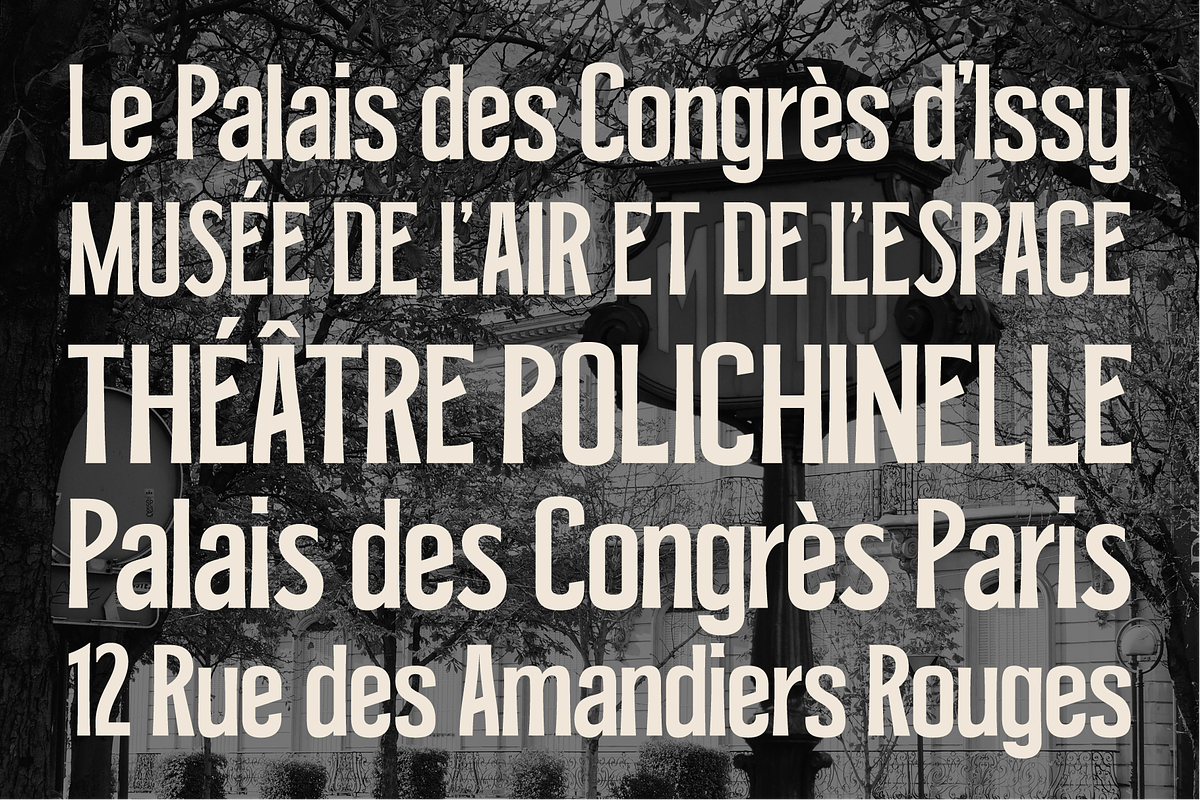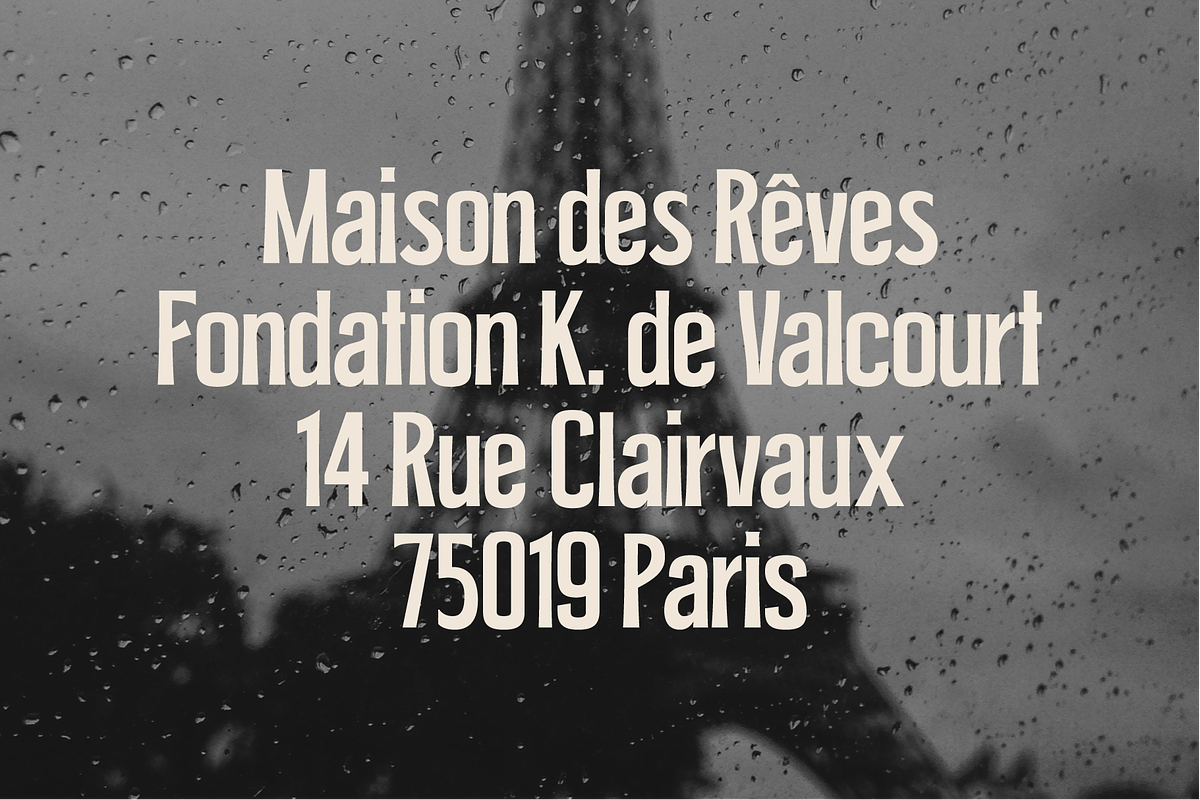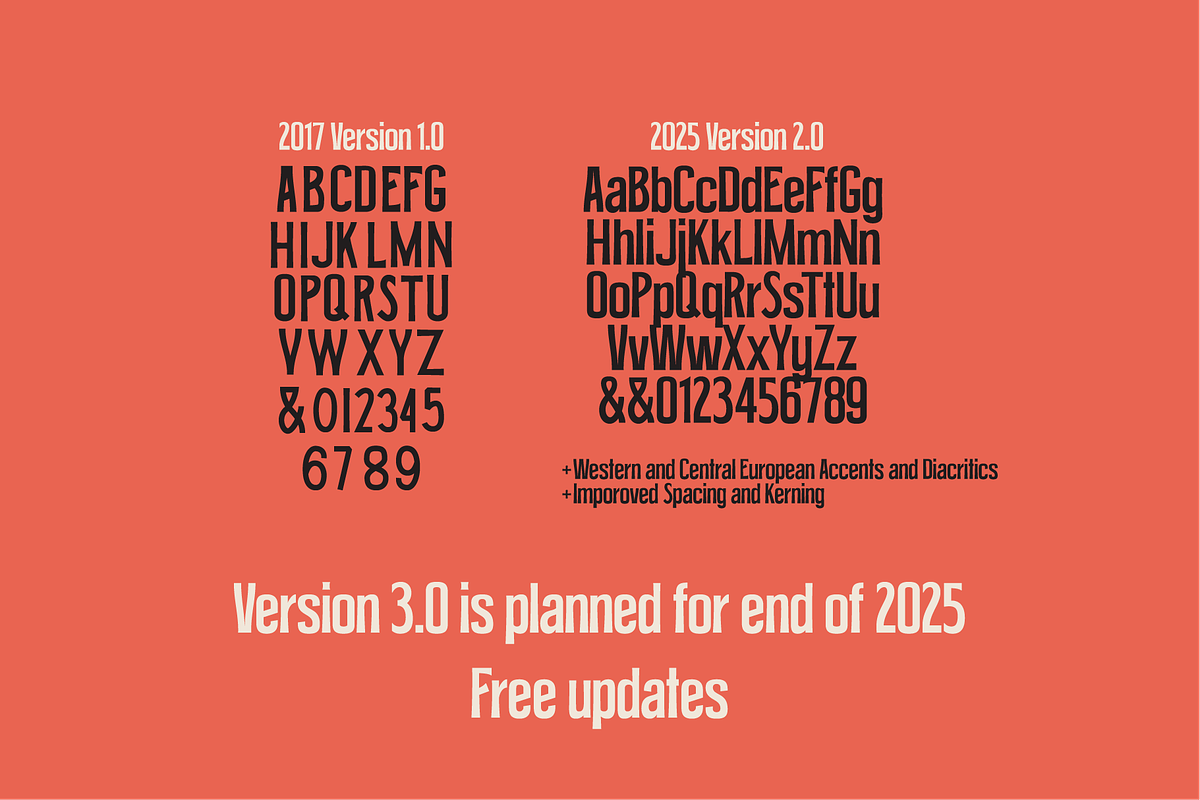
Paris Postcard UPDATED
MASSIVE 2025 Update! Now with lowercase, improved letterforms, better spacing and kerning, Western and Central European accents and diacritics. Update for free from your profile if you've purchased it before.
Do you love a handmade vintage lettering? Paris Postcard is a font that works great in large sizes and has sharp edges. Perfect for your vintage branding.
Paris Postcard Upper- and lowercase sans serif font, a wide range of different numbers and glyphs. All alternative characters can be accessed via the glyphs panel in your favourite software or with OpenType features turned on.